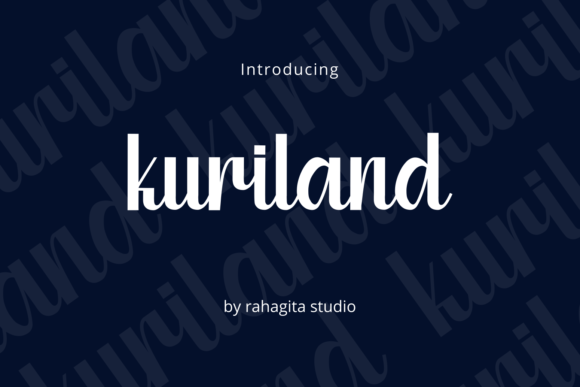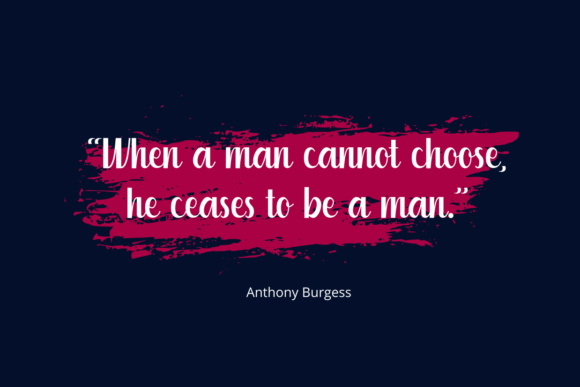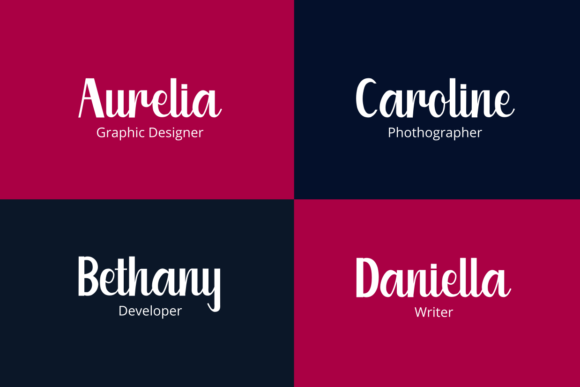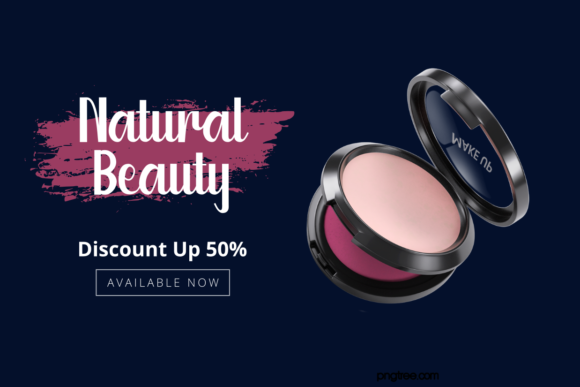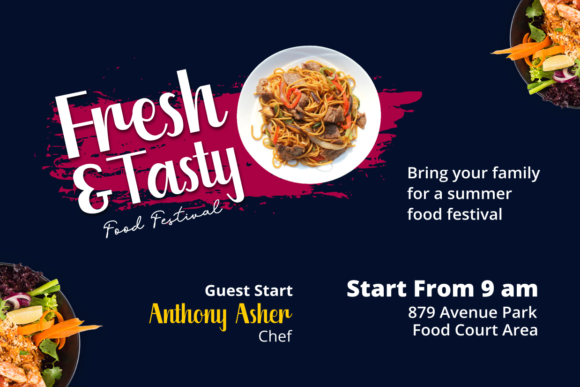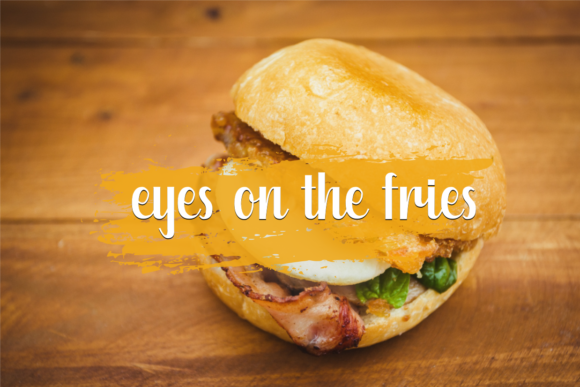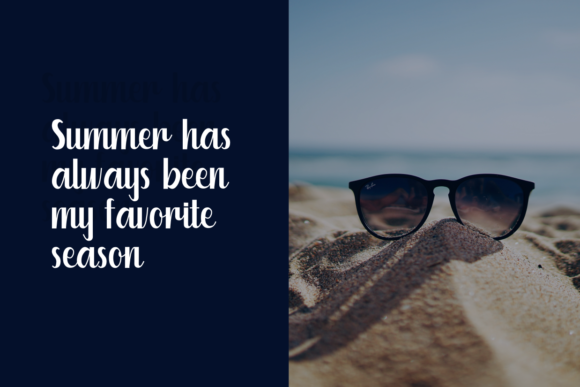
Kuriland Font
About Kuriland Font
Kuriland is a magical handwritten font carefully created with a touch of elegance. This is a beautiful combination of timeless elegance and authentic calligraphy. It features an incredibly classic style, while still keeping a friendly feel. Kuriland is the perfect font for making original and outstanding designs.